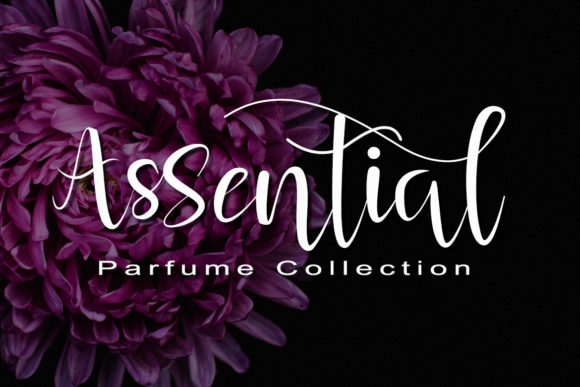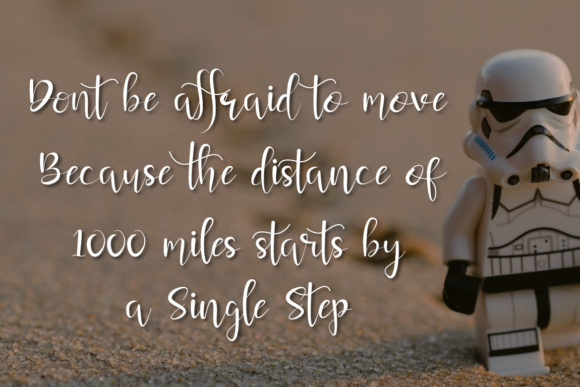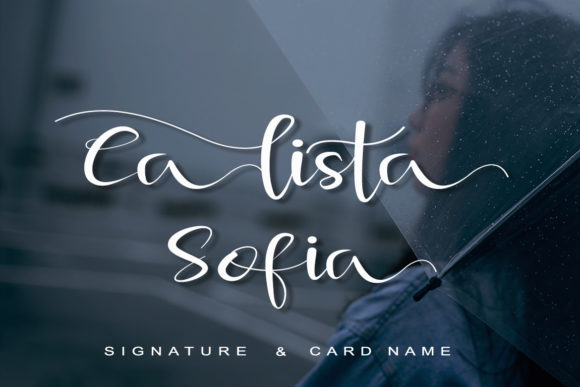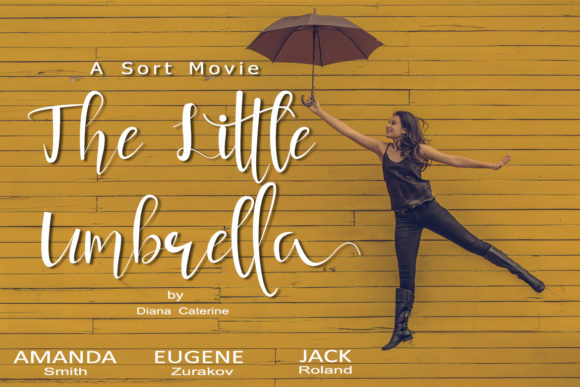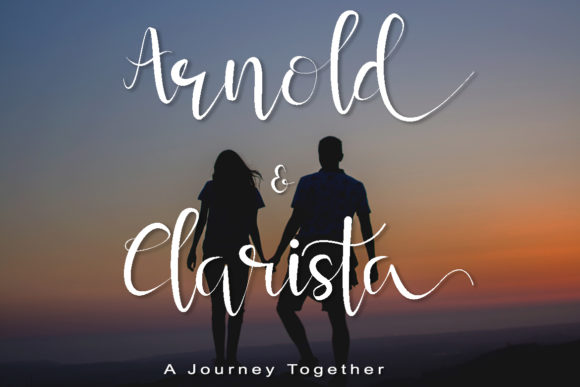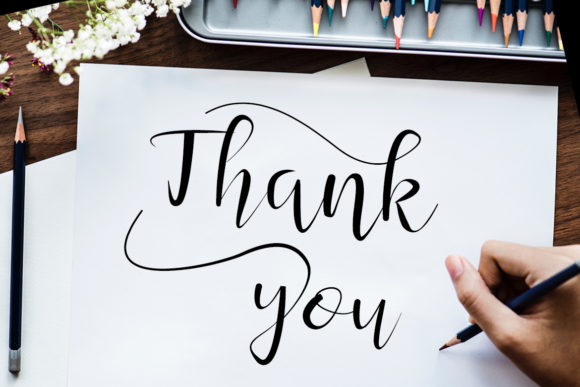
Introducing Guardeloves Script Font: Elevate Your Designs with Elegance
In the world of typography, a font can make or break the aesthetic of a design. For those seeking a touch of sophistication and elegance, the Guardeloves Script Font is an exceptional choice. This beautiful calligraphy font is designed to bring an upscale and chic look to various design projects, making it a versatile tool for designers and crafters alike.
What Makes Guardeloves Script Font Stand Out?
The Guardeloves Script Font boasts a simple yet elegant style that sets it apart from other fonts. Its clean lines and fluid curves give it a modern look that is both sophisticated and eye-catching. This font is perfect for adding a touch of luxury to your designs, making it ideal for high-end branding, wedding invitations, and other special projects.
Uses of Guardeloves Script Font
The versatility of the Guardeloves Script Font is one of its most appealing features. Here are some of the many ways you can use this font to elevate your designs:
- Branding: Create a lasting impression with a logo or business card that exudes elegance and sophistication.
- Wedding Invitations: Add a touch of romance and luxury to your wedding invitations and save-the-date cards.
- Signatures: Use Guardeloves Script Font to create beautiful signatures for your emails, letters, or artworks.
- Quotes: Highlight your favorite quotes or phrases with a font that adds a touch of elegance to your social media posts or blogs.
- Movie Titles: Create eye-catching movie titles or posters with a font that adds a touch of glamour to your project.
- Watermarks: Add a professional touch to your photos or artworks with a beautiful watermark.
- Business Cards: Stand out from the crowd with a business card that features a unique and elegant font.
- Greeting Cards: Create beautiful greeting cards for special occasions such as birthdays, anniversaries, or holidays.
- Logos: Design a logo that reflects your brand’s personality and style with Guardeloves Script Font.
- Magazines: Use this font to add a touch of sophistication to your magazine layouts, headers, and titles.
- Posters: Create eye-catching posters for events, promotions, or advertisements with a font that demands attention.
Why Choose Guardeloves Script Font?
With so many fonts available, why choose Guardeloves Script Font? Here are a few reasons why this font stands out:
- Unique Style: Guardeloves Script Font has a unique style that sets it apart from other calligraphy fonts.
- Elegant and Sophisticated: This font adds a touch of elegance and sophistication to any design project.
- Versatile: Guardeloves Script Font can be used for a wide range of design projects, from branding to wedding invitations.
- Easy to Read: Despite its elegant style, Guardeloves Script Font is easy to read, making it perfect for body text and headlines.
Tips for Using Guardeloves Script Font
To get the most out of Guardeloves Script Font, here are a few tips:
- Pair it with a Sans-Serif Font: Pair Guardeloves Script Font with a sans-serif font to create a beautiful contrast.
- Experiment with Colors: Try out different colors to find the perfect match for your design.
- Use it for Headlines: Use Guardeloves Script Font for headlines and titles to add a touch of elegance to your design.
- Don’t Overuse it: Use Guardeloves Script Font sparingly to avoid overwhelming your design.
In conclusion, the Guardeloves Script Font is a beautiful calligraphy font that can elevate your designs with its elegant and sophisticated style. Its versatility and unique style make it perfect for a wide range of design projects, from branding to wedding invitations. With its easy-to-read design and beautiful curves, Guardeloves Script Font is a must-have for designers and crafters looking to add a touch of luxury to their work.
| Font Name | Guardeloves Script Font |
| Author | Fahrul Anggoro |